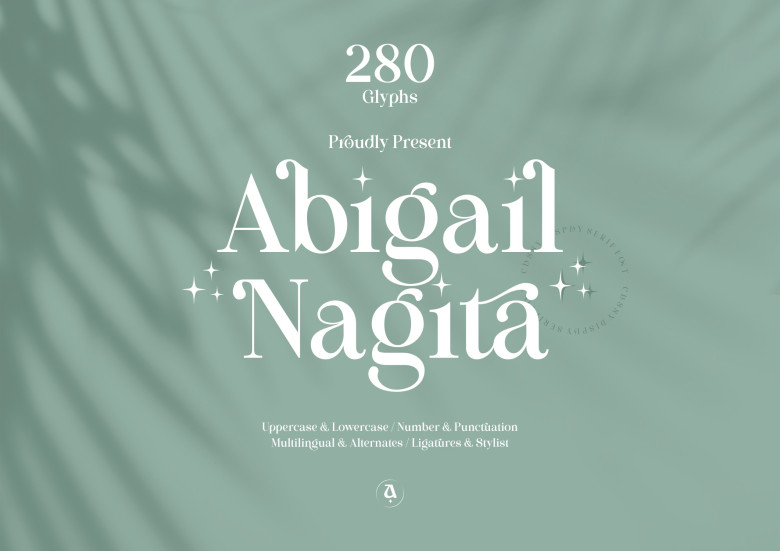
Abigail Nagita Font
Abigail Nagita features a delightful serif style. This elegant script font will add an individualistic and modern aesthetic to any art project, and has been encoded with PUA so you can access its wonderful glyphs & ligatures easily!
Abigail Nagita Serif Font